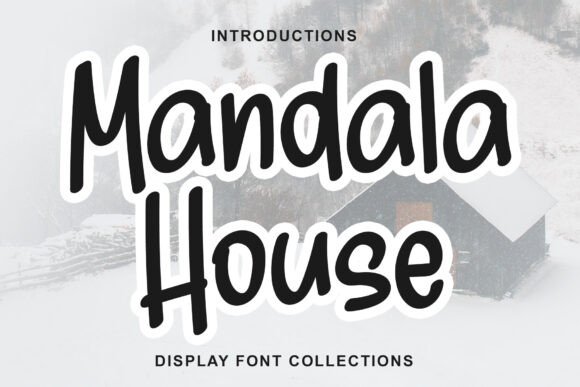
Mandala House Font: Add a Touch of Holiday Magic to Your Christmas Cards and Decorations
The holiday season is upon us, and what better way to spread the joy and cheer than with a festive and playful typeface that captures the essence of Christmas? Look no further than the Mandala House Font, a whimsical font designed to add a touch of holiday magic to your Christmas cards, decorations, and more.
What is Mandala House Font?
Mandala House Font is a festive and playful typeface adorned with enchanting swashes, perfect for adding a touch of holiday magic to your Christmas cards, decorations, and more. This font is designed to evoke the feeling of joy and wonder that comes with the holiday season, making it perfect for anyone looking to add a little extra something special to their holiday designs.
Key Features of Mandala House Font
- Festive and Playful Design: Mandala House Font is designed to be festive and playful, making it perfect for holiday designs.
- Enchanting Swashes: The font features enchanting swashes that add an extra touch of magic to your designs.
- Whimsical and Fun: The font has a whimsical and fun feel, making it perfect for adding a touch of personality to your holiday designs.
Uses for Mandala House Font
Mandala House Font is perfect for a variety of holiday designs, including:
- Christmas Cards: Add a touch of holiday magic to your Christmas cards with this festive and playful font.
- Holiday Decorations: Use the font to create festive holiday decorations, such as garlands, banners, and more.
- Social Media Graphics: Add a touch of holiday cheer to your social media graphics with this whimsical font.
- Digital Papers and Invitations: Use the font to create festive digital papers and invitations for your holiday parties and events.
Benefits of Using Mandala House Font
There are many benefits to using Mandala House Font for your holiday designs, including:
- High-Quality Design: The font features a high-quality design that is sure to impress.
- Unique and Creative: The font has a unique and creative feel, making it perfect for adding a touch of personality to your holiday designs.
- Versatile: The font is versatile and can be used for a variety of holiday designs.
Tips and Tricks for Using Mandala House Font
Here are a few tips and tricks for using Mandala House Font:
- Experiment with Different Sizes and Colors: Experiment with different sizes and colors to find the perfect look for your holiday designs.
- Pair with Other Fonts: Pair the font with other fonts to create a unique and creative look.
- Use the Swashes to Add Extra Magic: Use the swashes to add an extra touch of magic to your designs.
- Have Fun: Most importantly, have fun and be creative with the font!
Mandala House Font is a festive and playful typeface that is perfect for adding a touch of holiday magic to your Christmas cards, decorations, and more. With its enchanting swashes, PUA encoding, and whimsical design, this font is sure to bring joy and cheer to your holiday designs. So why wait? Download Mandala House Font today and start spreading the joy of the season!
- Q: What is Mandala House Font?
A: Mandala House Font is a festive and playful typeface adorned with enchanting swashes, perfect for adding a touch of holiday magic to your Christmas cards, decorations, and more. - Q: What is PUA encoding?